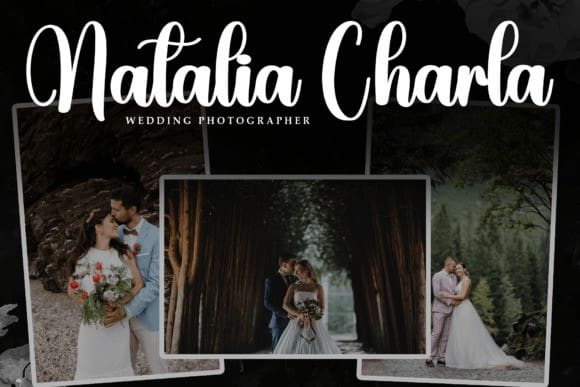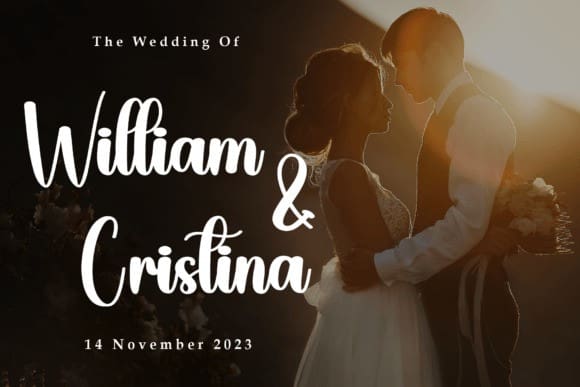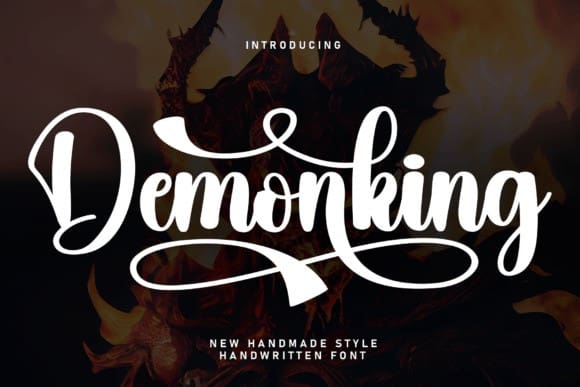
Demonking Script Font
Demonking Script Font is a lovely and timeless handwritten font. It is the best choice for creating eye catching logos, branding and quotes. Every letter has a unique and beautiful touch, which will make your design come alive!